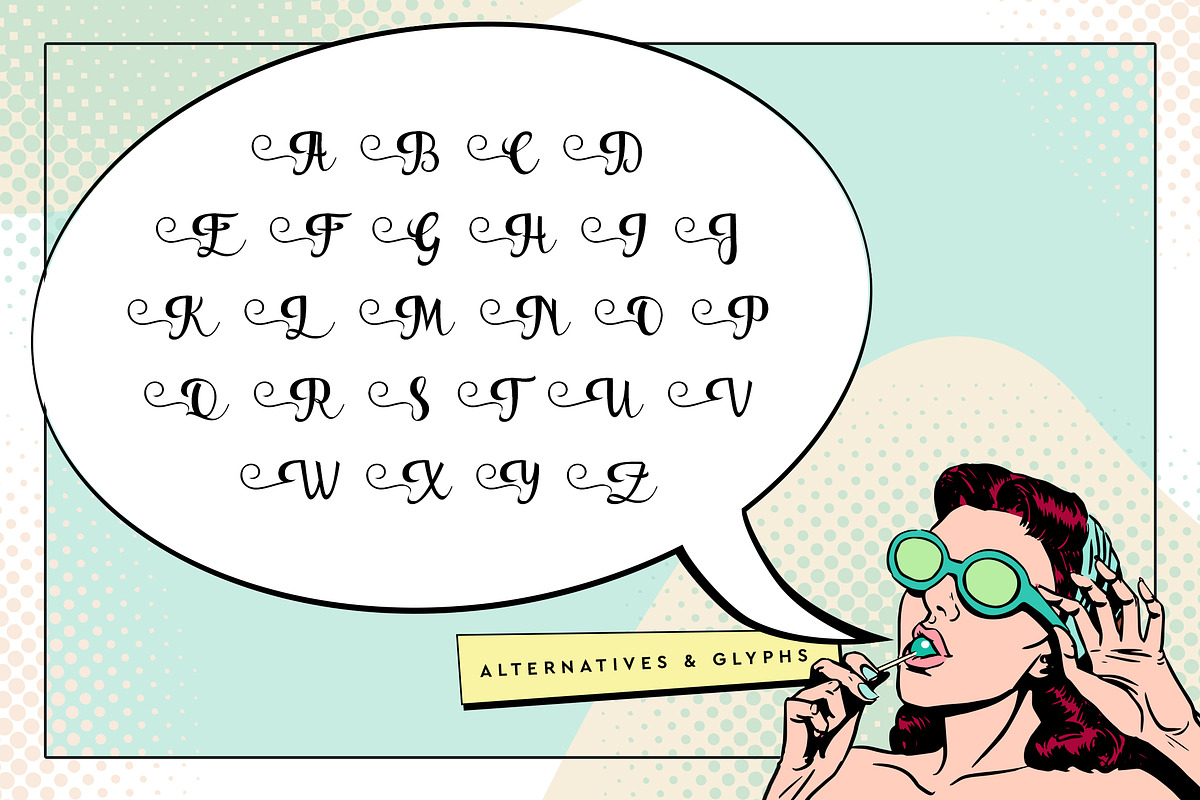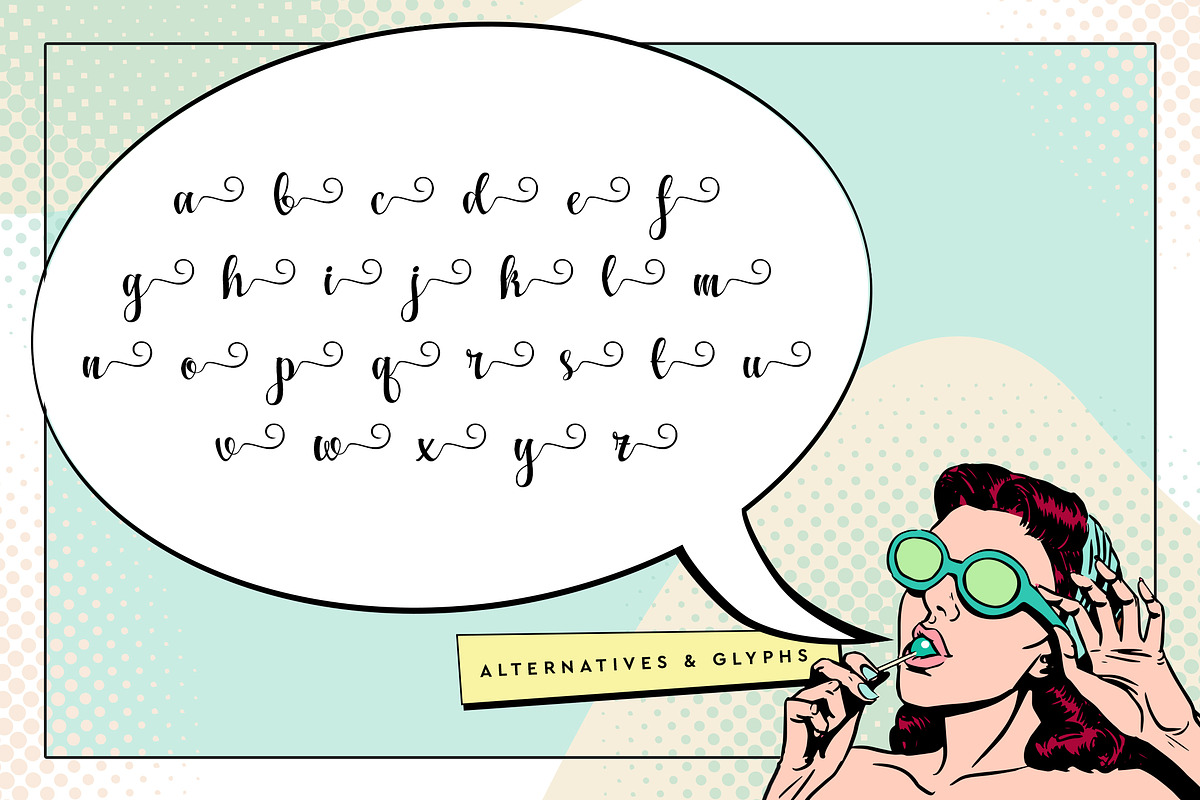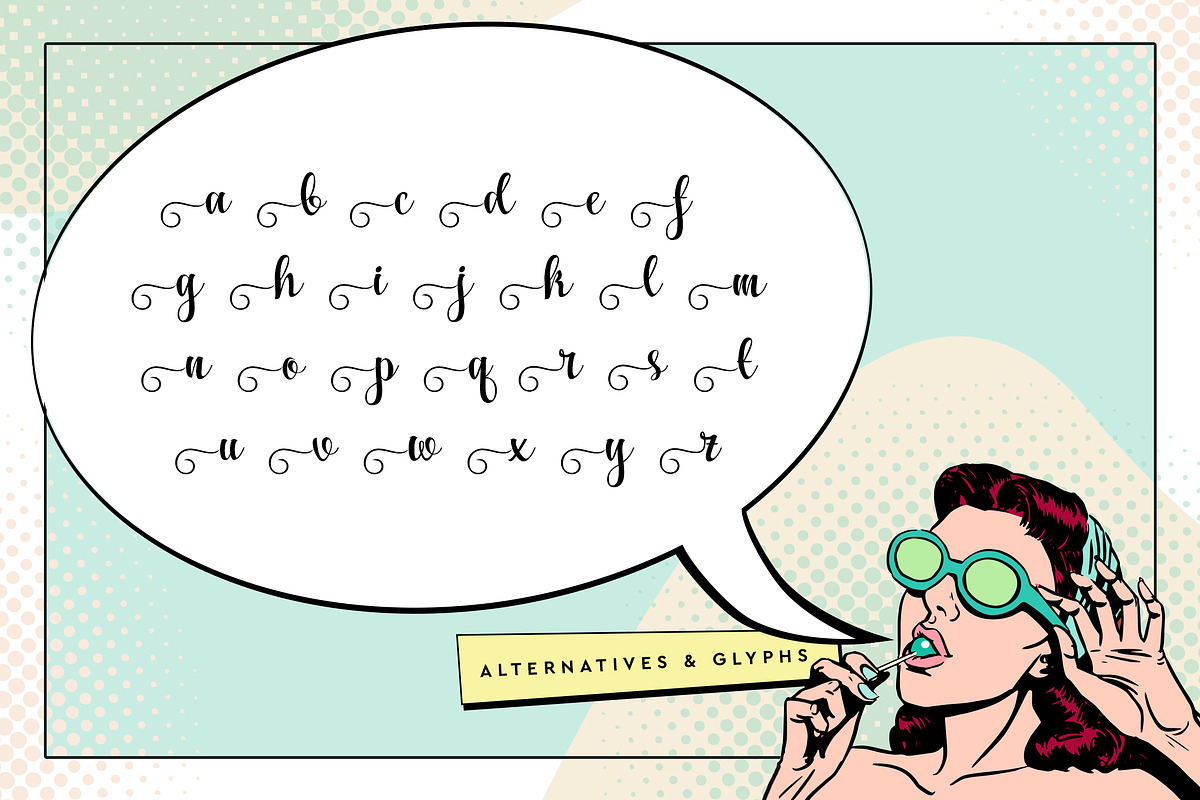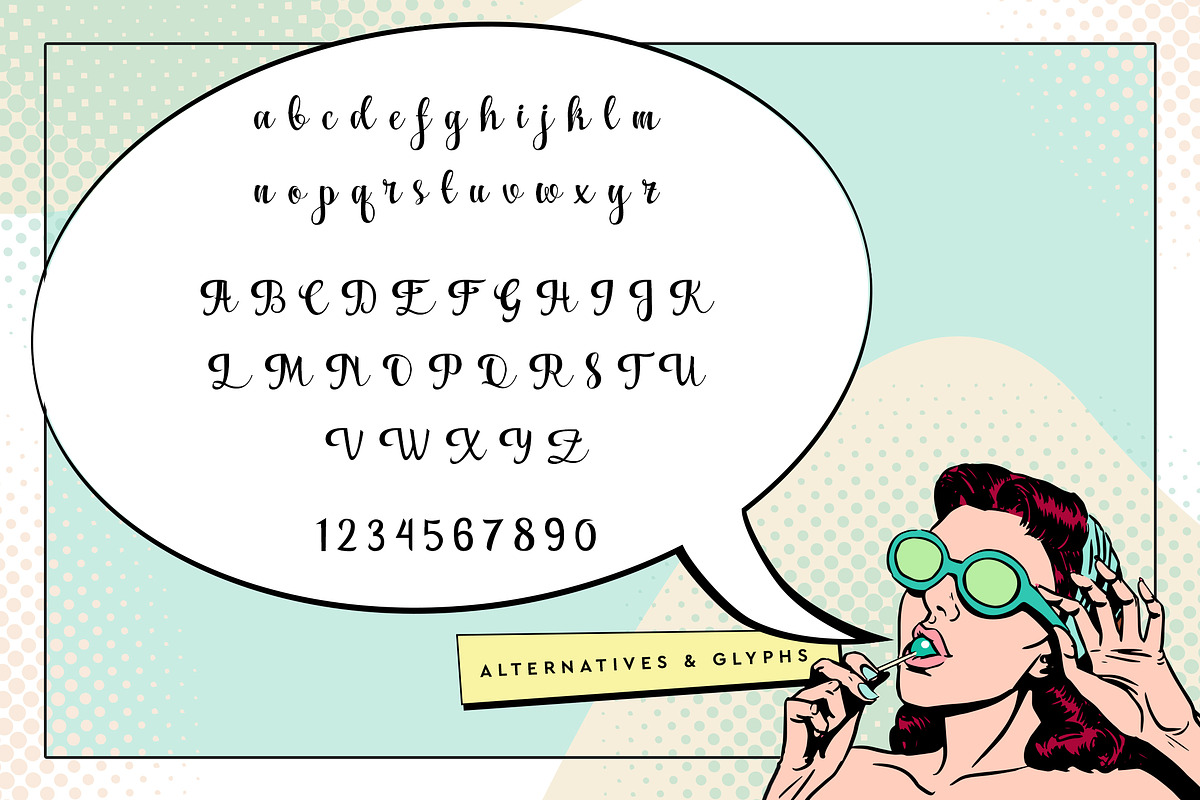
Golly Gosh
Golly Gosh by Font Bundles is a font selected for branding, posters, packaging, typography.
- Golly Gosh is not only fun and daring but also comes packed with tonnes of extra glyphs and alternates.
Why Golly Gosh is worth a look
Golly Gosh by Font Bundles fits naturally into Branding, posters, packaging, typography.